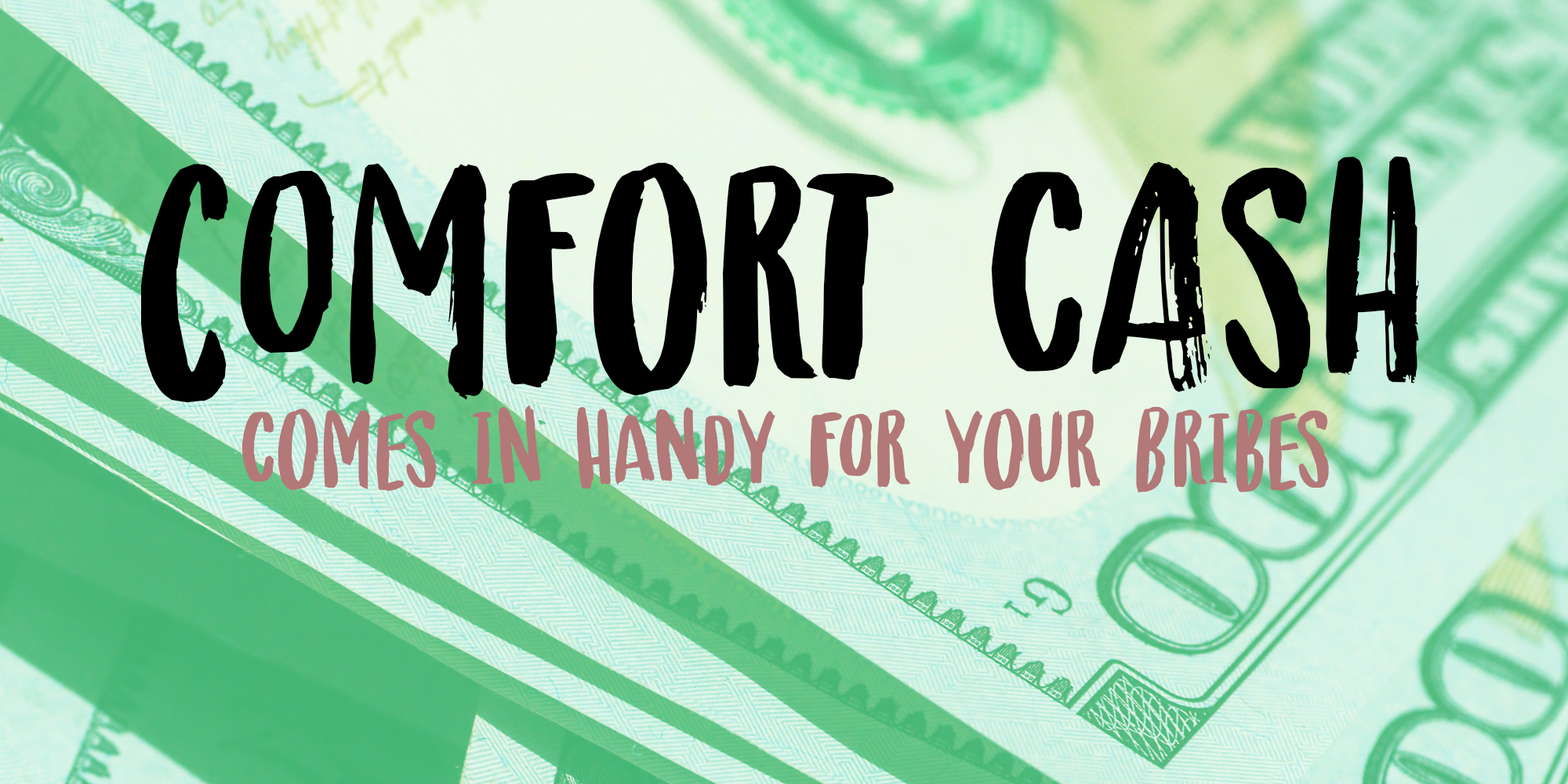
Comfort Cash
Comfort Cash was a font I made using a brush and Chinese Ink. It was inspired by a scandal unfolding in the lovely country of Albania, where some wealthy and privileged people are trying to build a massive resort in a protected nature reserve, frequently visited by flamingos.
Comfort Cash comes with massive language support (including Albanian) and a lovely set of alternates, which cycles as you type.